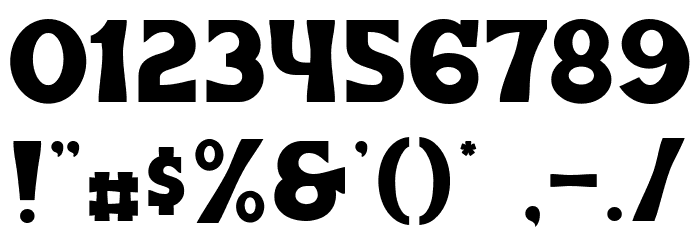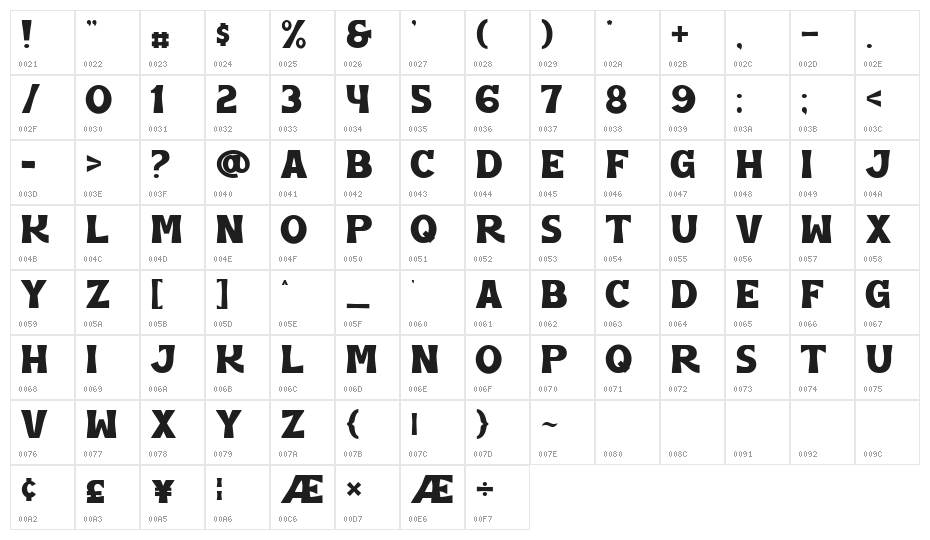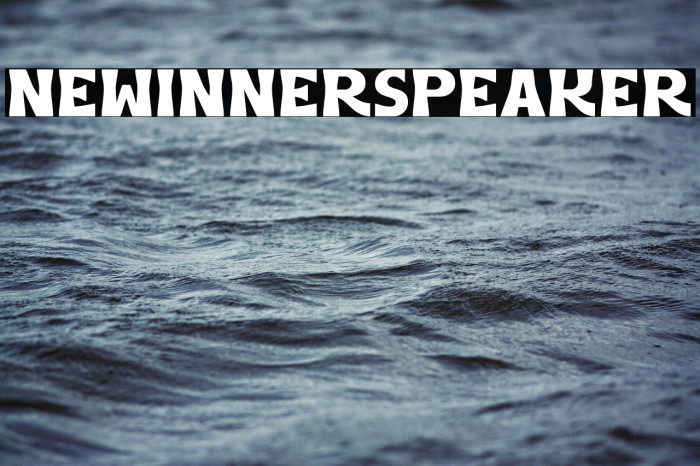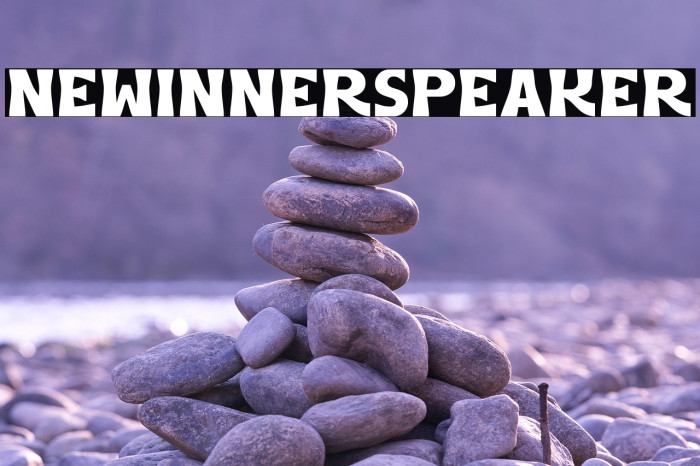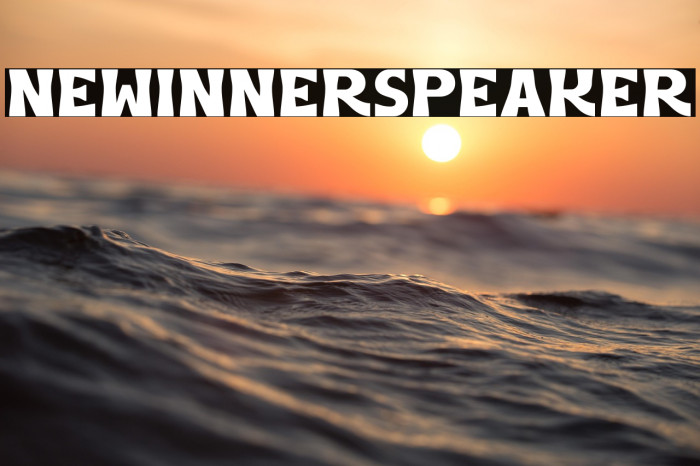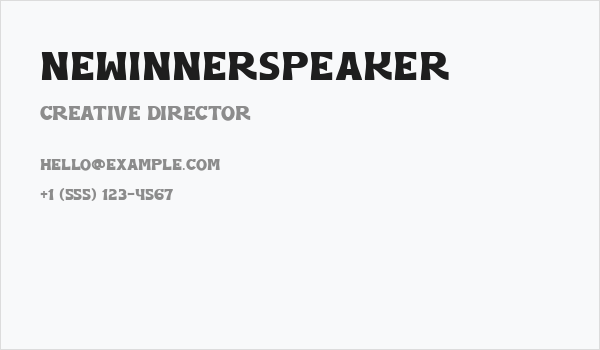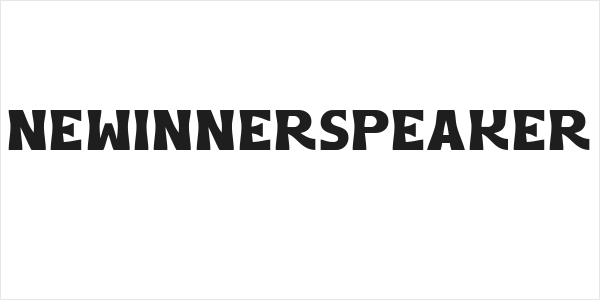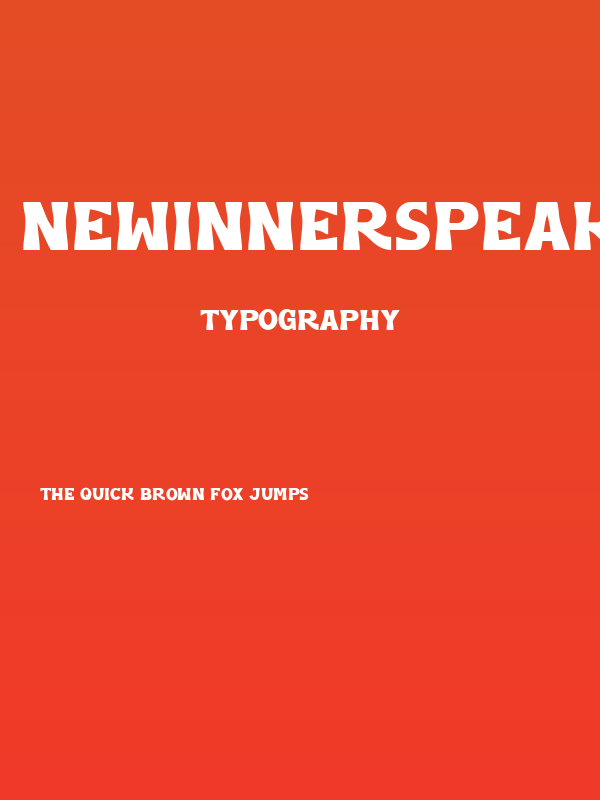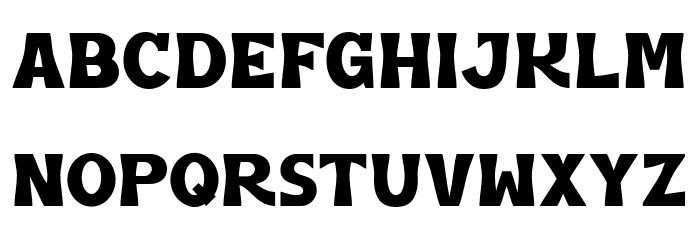
NewInnerspeaker Font
NewInnerspeaker Description
This font features a bold and dynamic design with a strong presence. The characters are crafted with thick, uniform strokes that give it a robust and impactful appearance. The edges are slightly rounded, adding a touch of softness to the otherwise bold structure. The font maintains a consistent weight throughout, ensuring readability while still making a statement. Its unique style is characterized by a slight inward curve on certain letters, providing a distinctive and memorable look. The numerals and special characters are designed to match the boldness of the alphabet, ensuring a cohesive appearance across all text elements.
| Proposed Projects | Ideal for use in posters, headlines, branding, and any project that requires a strong visual impact. |